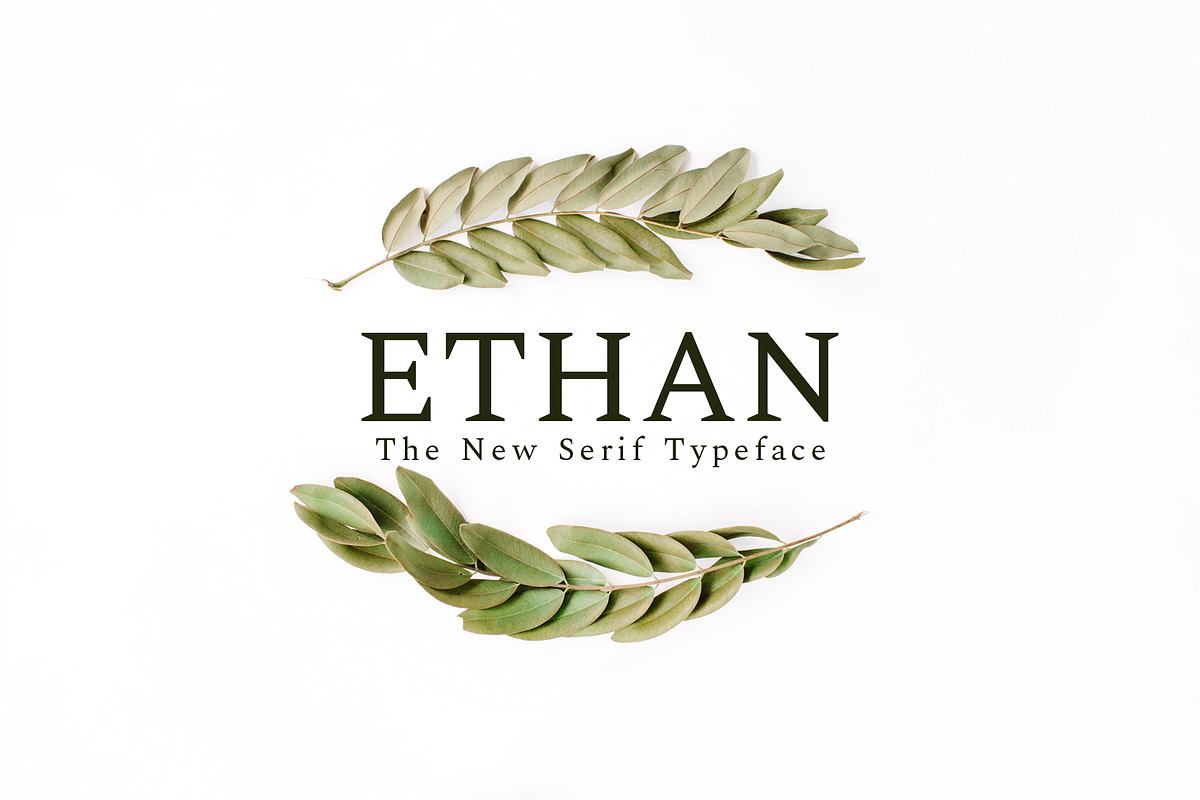
Ethan Serif 8 Font Family Pack Free Download is a comprehensive serif typeface family that offers a wide range of weights and styles, making it perfect for various design needs. Whether you're working on branding, editorial layouts, website design, packaging, or advertising, the versatility of Ethan Serif ensures your designs look polished and professional.
This font family includes a variety of weights, from light to bold, allowing you to create balance and hierarchy in your typography. Its modern yet classic serif structure brings both elegance and readability, making it ideal for both print and digital projects.